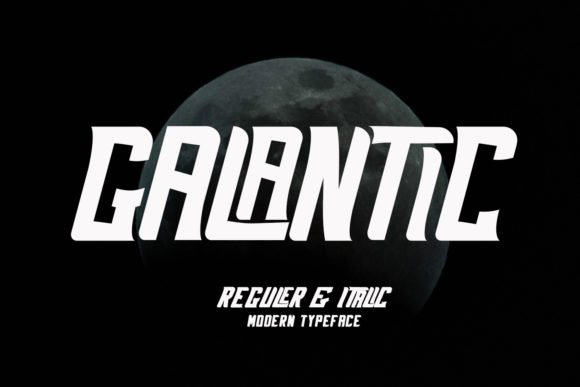
Discover the Perfect Display Font for Your Creative Projects
Have you ever been working on a project, pouring your heart and soul into the design, and then – BAM! – you stumble upon the perfect font that brings everything together? That’s exactly what happened to me when I discovered the Galantic Font. Its bold, thick letters are like a breath of fresh air, adding a touch of personality to any project.
The Galantic Font is designed to make a statement, whether you’re crafting, designing digital art, creating presentations, or making greeting cards. Its versatility is unmatched, and with its PUA encoding, you can access all the glyphs and swashes with ease. This font is a game-changer for designers, offering endless possibilities for creative expression.
- Unique Characteristics: Galantic Font features a unique blend of modern and classic elements, with clean lines, geometric shapes, and subtle flourishes, making it perfect for designs that require a touch of sophistication.
Galantic Font Review
As a designer, I’ve had the chance to play around with the Galantic Font, and I’m here to share my honest thoughts.
- Galantic Font has a unique, futuristic feel to it, making it perfect for projects that need a touch of sci-fi or high-tech flair.
- The font is highly legible, even at smaller font sizes, which is a must-have for any good font.
- The Galantic Font family includes a wide range of weights and styles, giving designers plenty of options to choose from.
- The font’s futuristic feel can be overwhelming if used excessively, so it’s essential to use it sparingly and balance it with other fonts.
- The Galantic Font may not be the best choice for body text or long blocks of text, as it can be tiring to read.
- The font’s uniqueness can also make it difficult to pair with other fonts, so designers will need to be creative when combining it with other typefaces.
The Galantic Font is a great addition to any designer’s toolkit, offering a unique and futuristic look that’s perfect for specific projects. While it has some limitations, I think it’s a solid choice for designers looking to add some excitement to their designs.
Getting the Most Out of Galantic Font
For optimal results, use Galantic Font in combination with a clean and modern design aesthetic. Experiment with different font sizes and colors to create visual hierarchy and emphasis.
Galantic Font is ideal for creative and modern designs, such as:
– Marketing materials (brochures, flyers, etc.)
– Digital products (websites, apps, etc.)
Alternatives to Galantic Font
The Galantic Font is a popular font known for its elegant and modern design. However, it may not be suitable for every project. Here are some alternatives that designers can consider.
Playfair Display is an elegant and luxurious script font, perfect for use in high-end branding, luxury packaging, and invitations. It features intricate details and flourishes that give it a classic and sophisticated feel. Compared to Galantic Font, Playfair Display is more ornate and has a more traditional feel.
Lato is a modern sans-serif font designed for digital use. It’s highly legible and versatile, making it suitable for use in a wide range of applications, from web design to print materials. Compared to Galantic Font, Lato is more minimalist and has a more modern feel.